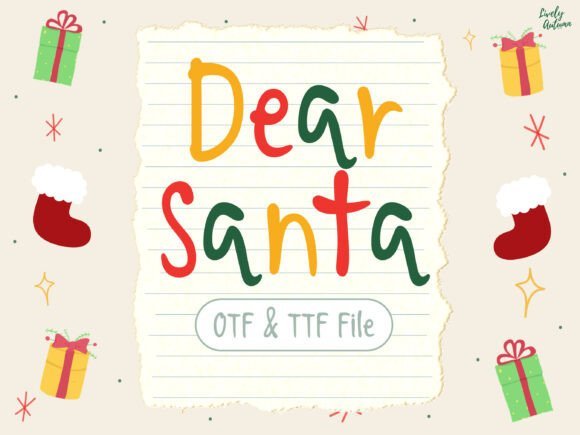
Getting in the Holiday Spirit with Dear Santa Font
There’s nothing quite like the feeling of brainstorming a new project, surrounded by twinkling lights, hot cocoa, and a dash of holiday magic. As designers, we’re always on the lookout for the perfect font to bring our ideas to life, and this season, we’ve discovered a real treat: the adorable Dear Santa Font.
This charming sans-serif, handwritten font is the perfect addition to any project, from festive invitations and posters to social media graphics, journals, and more. With its playful, whimsical feel, Dear Santa Font is sure to add a touch of holiday cheer to any design. Whether you’re a seasoned pro or just starting out, this versatile font is a valuable tool to have in your toolkit.
Dear Santa Font Key Features
• Size: The font family includes 6 styles: Thin, Light, Regular, Medium, Bold, and Black, offering flexibility for different design needs.
• Resolution: The font is designed for use at high resolutions, ensuring crisp and clear text even at larger sizes.
• Unique Characteristics: The font features a playful, handwritten style with a touch of magic, perfect for holiday-themed designs and children’s content.
Designer Review: Dear Santa Font
I recently had the chance to work with the Dear Santa Font, and I must say it’s a delightful addition to any holiday design project. ✨ The font’s playful and whimsical nature makes it perfect for capturing the magic of the season. From Christmas cards to gift tags, this font is sure to add a touch of festive cheer to any design.
• ✨ Unique and creative letterforms that evoke a sense of nostalgia and wonder.
• ✨ Excellent for use in digital and print projects, making it a versatile choice for designers.
• ✨ Easy to read, even at smaller font sizes, which is a must for any design that requires clear communication.
• ⚠️ Limited language support, which may be a concern for designers working on international projects.
• ⚠️ May not be the best choice for designs that require a more modern or sleek aesthetic.
Overall, I’d say the Dear Santa Font is a solid choice for designers looking to add some holiday flair to their projects. While it may not be perfect for every project, its unique charm and versatility make it a great addition to any designer’s toolkit.